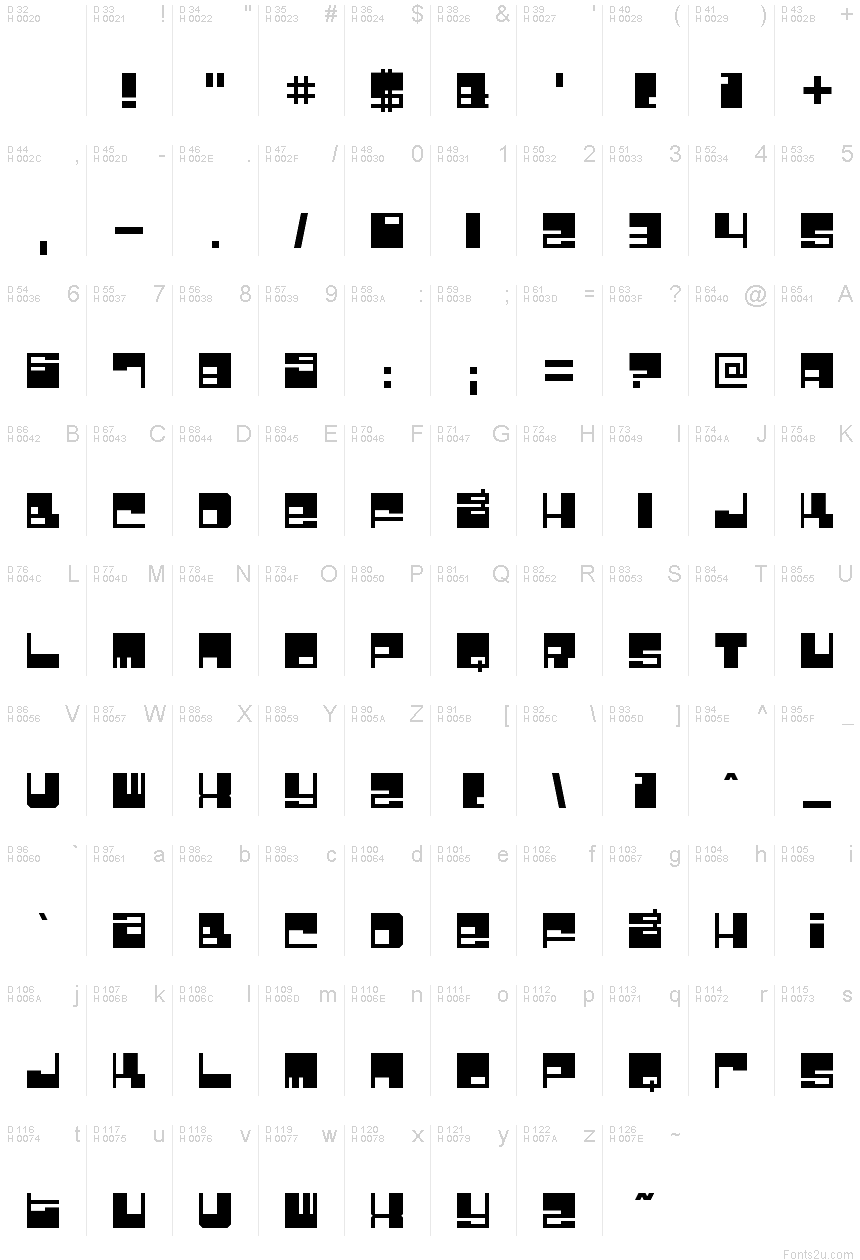
Bomb Factory
Bomb Factory font by Andreas Nylin packs each letter into tight, blocky towers with punched-out rectangular counters that feel industrial and mechanical. The rhythm of the narrow columns and hard right angles gives words a compact, pressurized energy that suits bold headings. This free font leans into a techno vibe while staying simple enough to read at a glance.
Used at large sizes, Bomb Factory is ideal for game logos, sci‑fi titles, rave or factory-themed posters, event flyers, and edgy album covers. This free font also works in app splash screens or YouTube thumbnails where you want strong vertical texture without messy details. Try pairing it with a plain grotesque sans for body text and keep generous letterspacing to let the dense forms breathe.